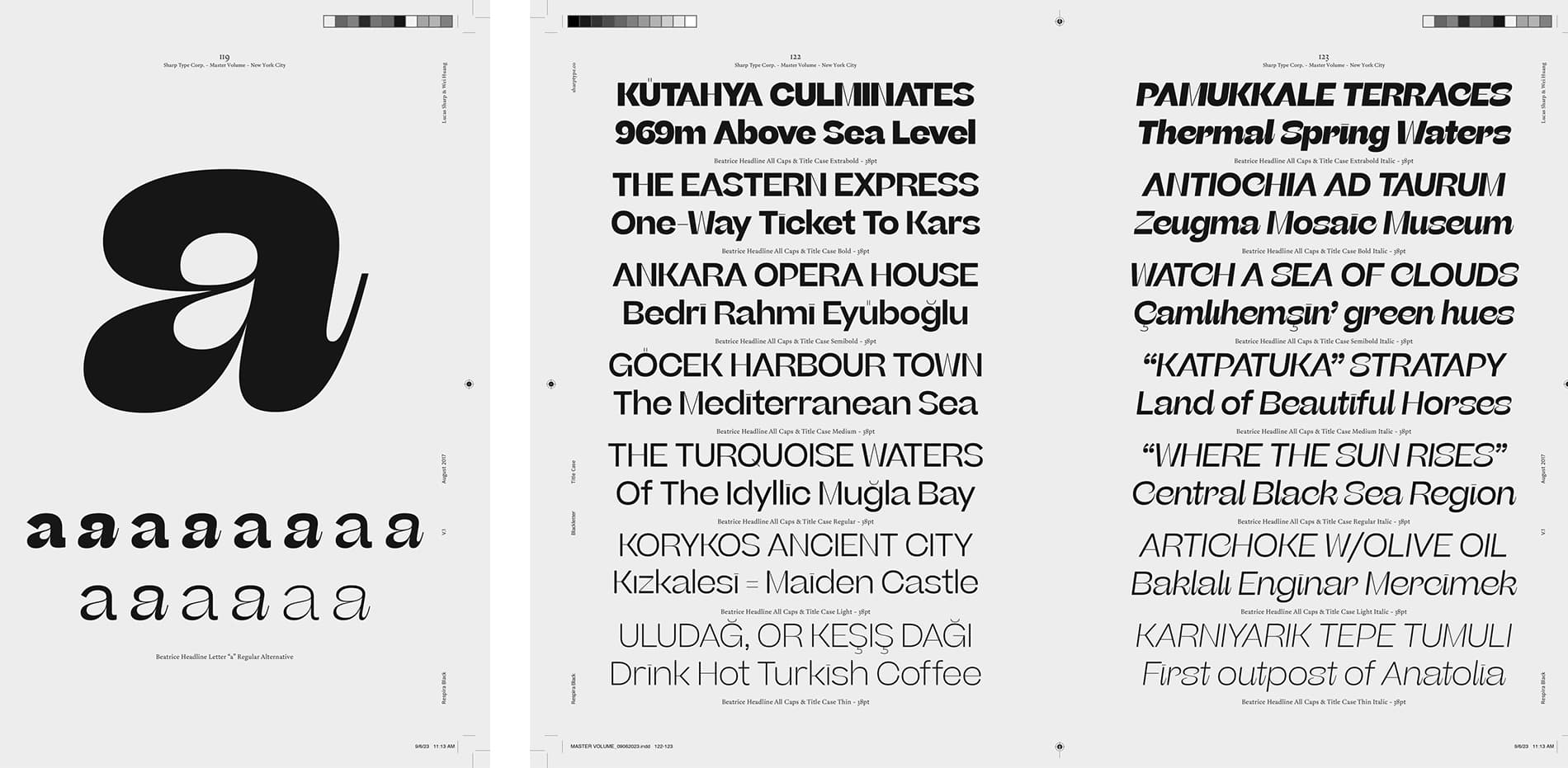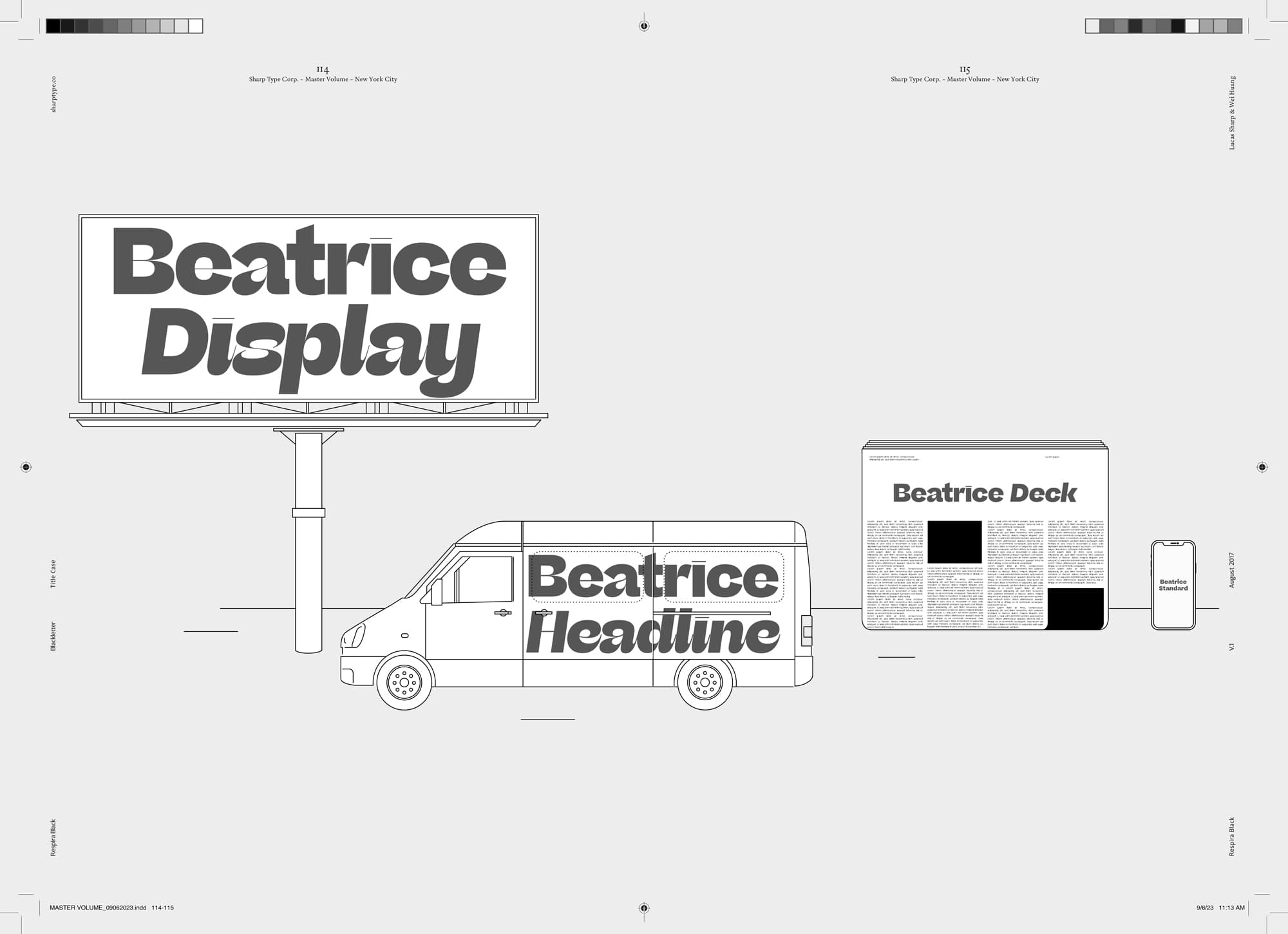
Beatrice Headline
Beatrice is a new kind of typeface. This collection of fonts is an exploration of a range of contrast methodologies, combining various aspects from the canon expansionist systems, inverted contrast, and the contrast behavior of grotesks. These methodologies were dissected and used as cornerstones in creating our own system. When it was first released in 2018, Beatrice landed in largely unexplored territory in type design, and the bar it set remains today. Built upon the foundation of the American Gothic and utilizing tight-not-touching spacing, the Beatrice Superfamily features a robust set of weights across four optical sizes including Standard, Deck, Headline, and Display. The iconic cut of Beatrice Display offers the highest head-turning contrast; where Beatrice Standardis best for all high-function-low-contrast needs; Headline and Deck, were drawn to smoothly click into place between the original two sizes, offering a more gradual spectrum of applications.
The Headline cut of Beatrice is ideal for the slightly smaller display and headline settings that Beatrice Display is unequipped to handle with its ultra-fine hairlines and delicate detailing. Beatrice Headline maintains the eye-catching curb-appeal of the Display cut, while allowing for a larger range of useful point sizes and applications. Beatrice Headline can also be used interchangeably with Display for a more casual mood.
Design: Lucas Sharp with Connor Davenport
Taken as a whole, the Beatrice superfamily makes full use of the wide spectrum of optical sizes defined by the extrema of Display and Standard. All four styles share a common framework and contrast logic, with point sizes broadly determining each subfamily’s application.
Optical Logic